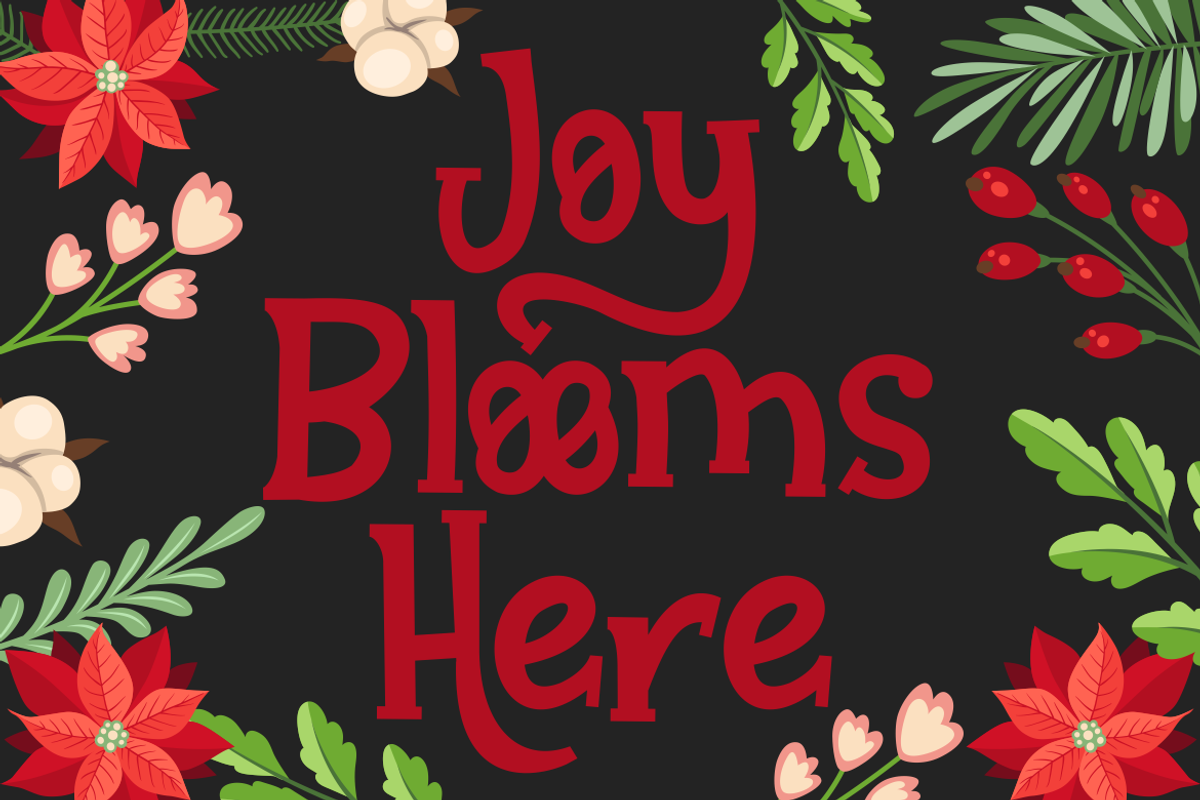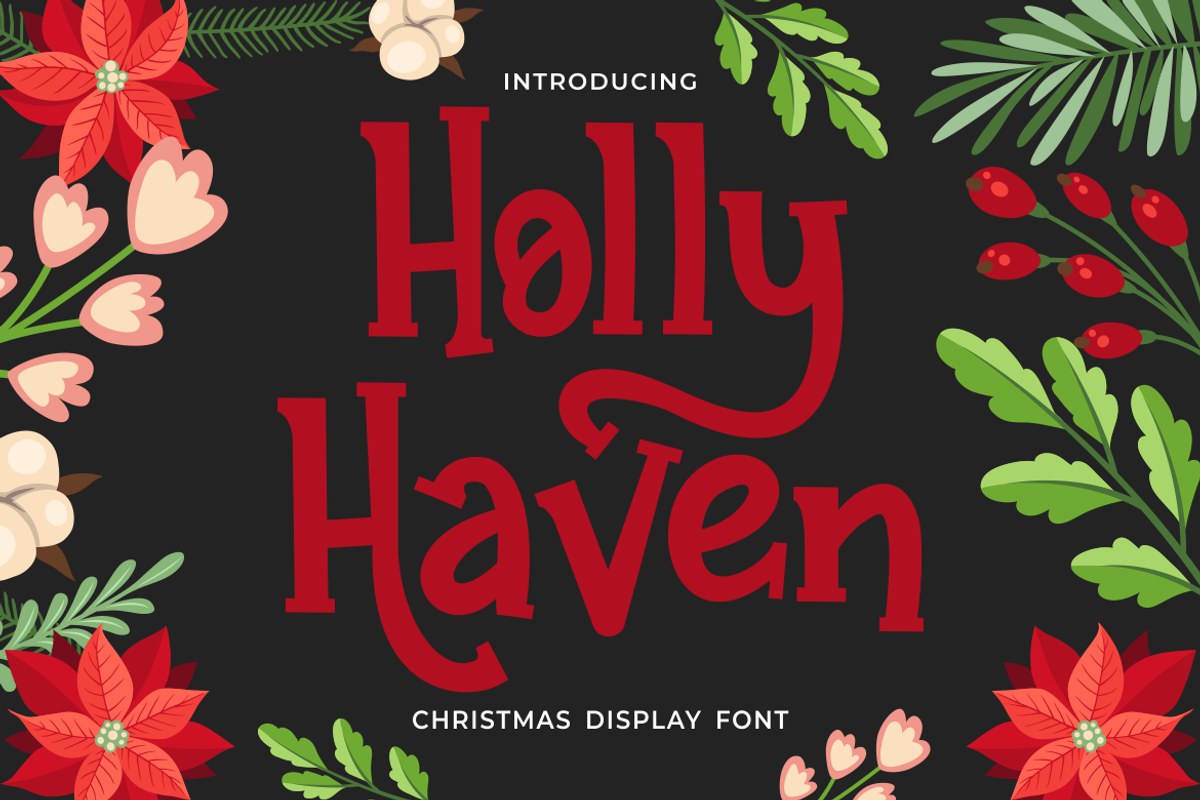
Holly Haven Serif Display Font
Holly Haven Serif Display Font is a decorative serif typeface designed to capture a warm holiday atmosphere. The letterforms feel bold and confident, with smooth curves and slightly tapered strokes. Each character shows balanced contrast between thick and thin lines, creating an elegant rhythm. The proportions feel tall and graceful, helping words stand clearly in headlines. Soft serif details add a classic touch without feeling heavy or formal. Subtle decorative curves bring a gentle playful tone, keeping the font friendly and inviting. The overall structure feels polished yet expressive, making text visually engaging. This font delivers strong readability while maintaining a festive personality. Holly Haven Serif Display Font suits designs that aim to feel joyful, welcoming, and memorable during seasonal moments.
From a stylistic view, this font blends holiday spirit with refined serif design. It works especially well for Christmas and New Year themes that need warmth and clarity. Branding projects benefit from its ability to feel decorative without losing professionalism. The font performs well in logos, advertisements, headlines, posters, and product packaging. It also fits greeting cards, invitations, stickers, book covers, magazine titles, and film titles. Crafting projects and seasonal business materials gain character through its elegant shapes. Holly Haven Serif Display Font helps messages feel celebratory and emotionally engaging. The serif structure supports storytelling and tradition-focused designs. Creative projects gain visual balance between classic style and festive energy. Holly Haven Serif Display Font provides a strong typographic voice for holiday campaigns across print and digital media.